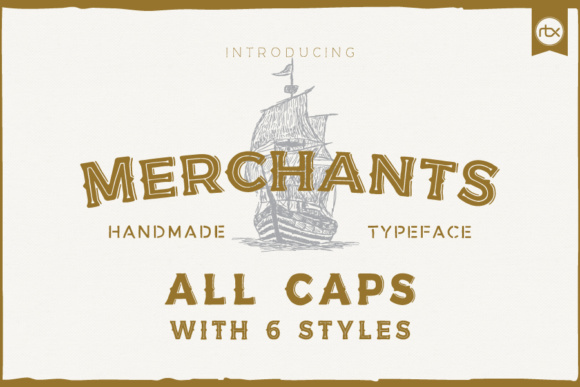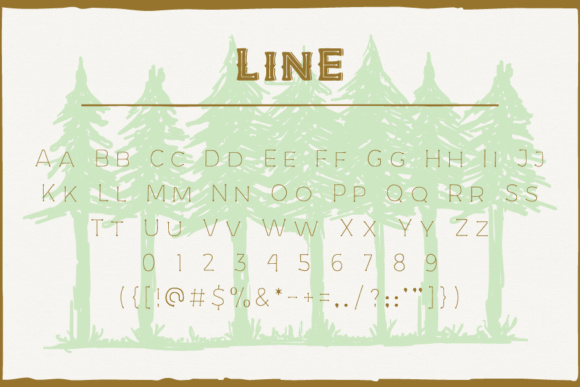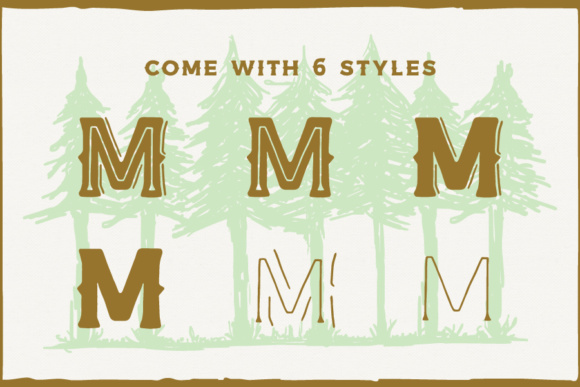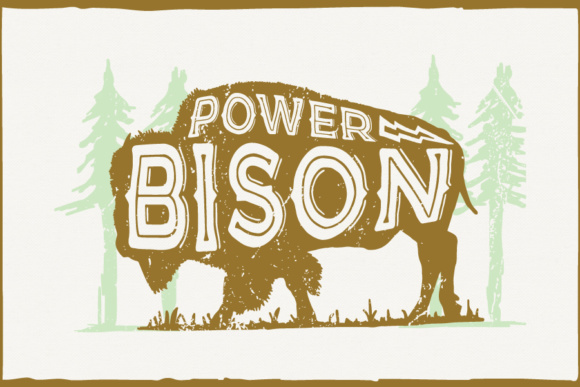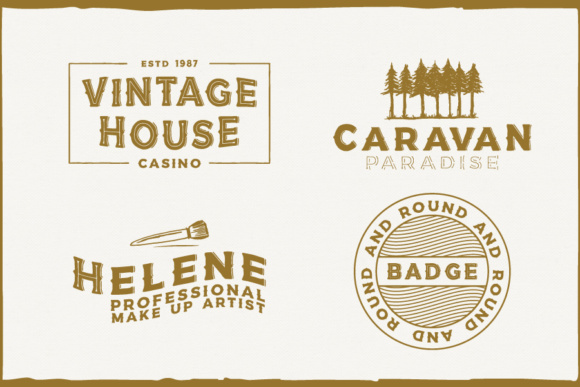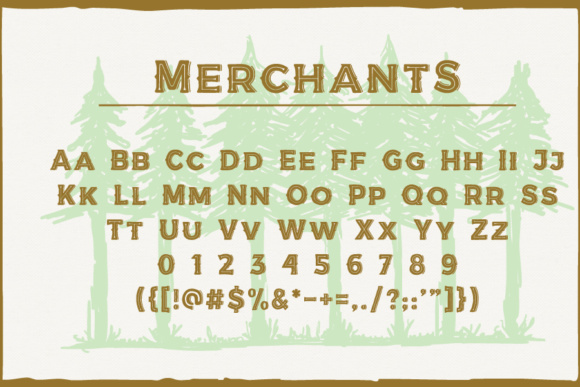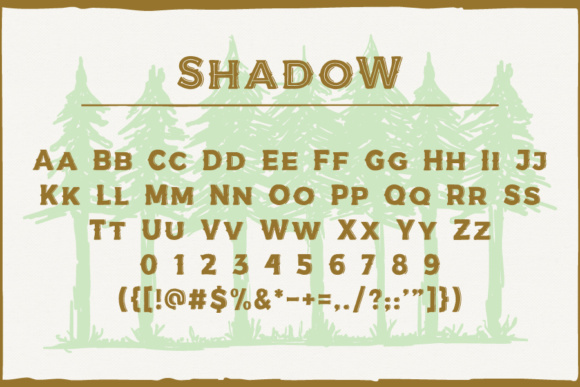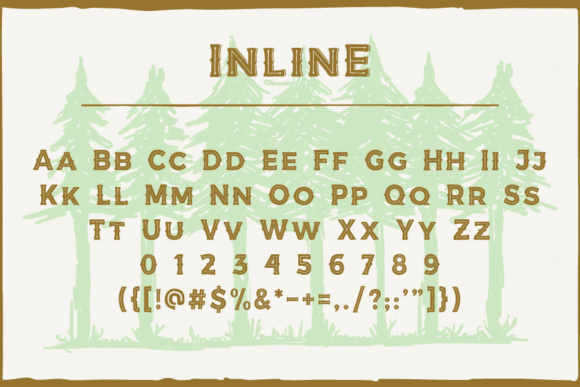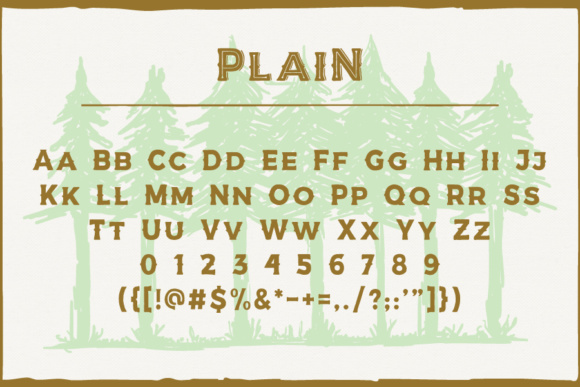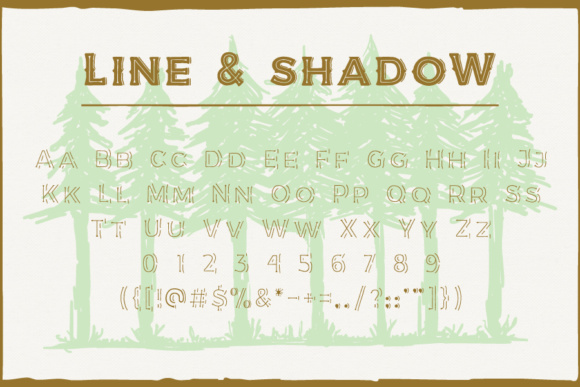
Merchant Family Font
About Merchant Family Font
The Merchants is a handmade font which comes in six styles: original, line, shadow, plain, inline and line & shadow. Simply combine those styles to create endless variations and create the perfect design. In the bonus is a hand drawn tree included.